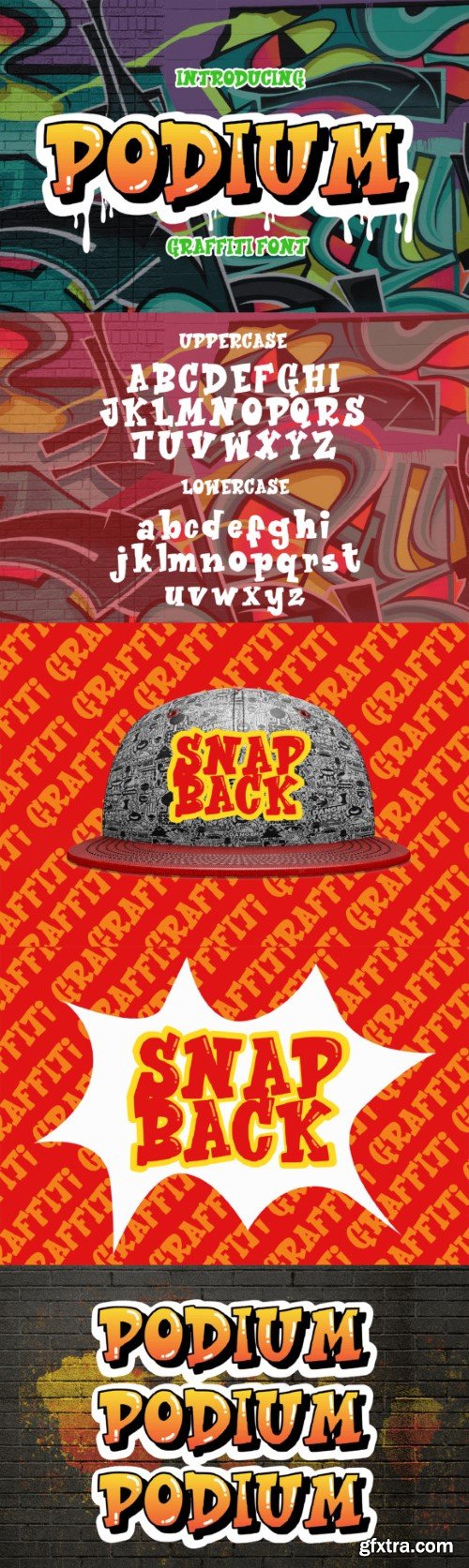
podium字体
Podium is an incredibly unique graffiti display font. Masterfully designed to become a true favorite, this font has the potential to bring each of your creative ideas to the highest level!